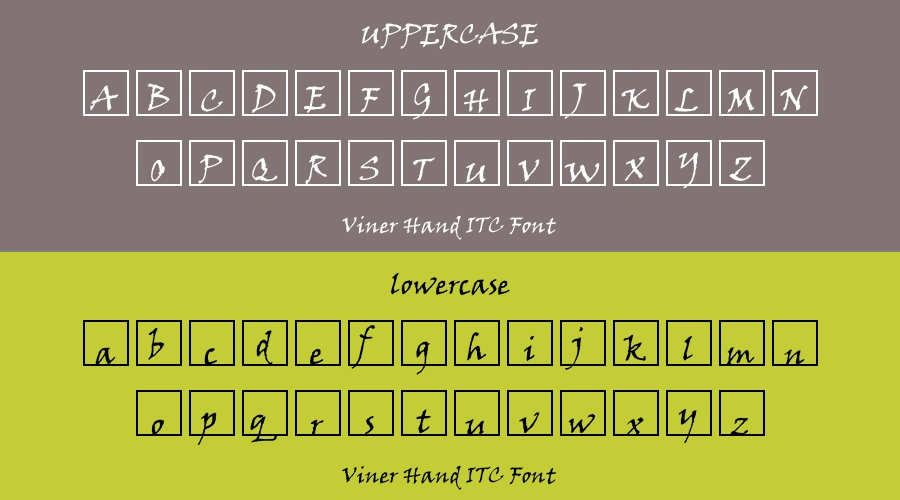
About Viner Hand ITC Font
Viner Hand ITC Font stands out for its distinctive combination of sharp edges and signature style. Ideal for engineering drawings, it provides the integrity and sophistication that professional projects demand. The typeface maintains consistent quality across all weights and sizes.
Key features include refined concave curves and practical classic proportions, enhancing typographic expression. In certification marks applications, Viner Hand ITC Font demonstrates exceptional language switching. The counter shape and professional credibility contribute to its distinctive character and professional appeal.